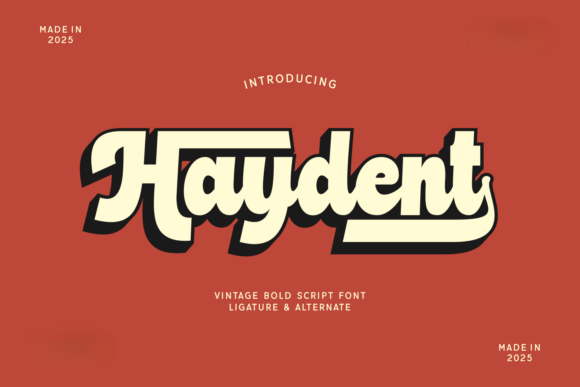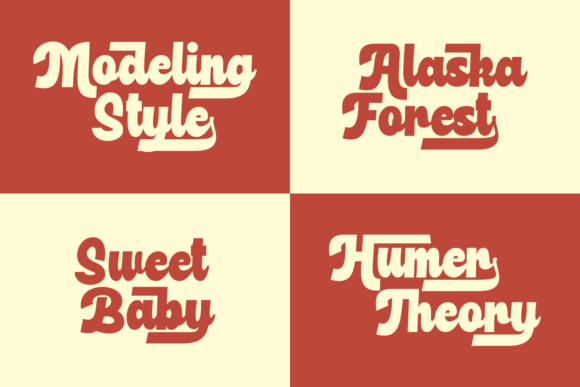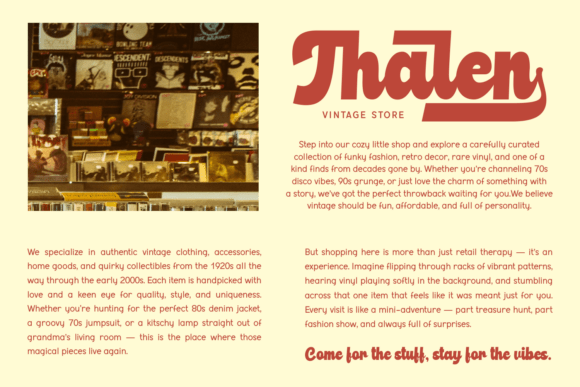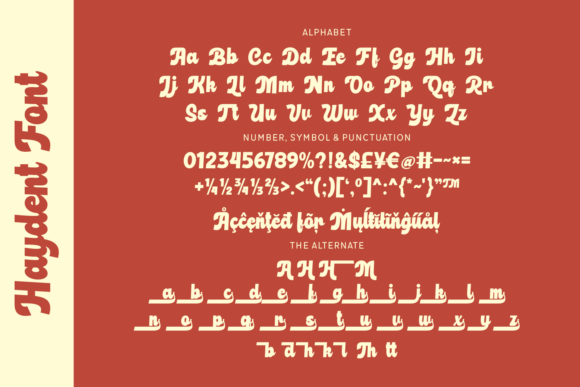
Haydent Font: Bold Retro Script for Eye-Catching Poster Design
About the Haydent Font
From logos to headlines, the Haydent Font is the perfect choice for making a lasting impression. Haydent is a vintage-inspired bold script font that blends retro charm with modern swagger. With strong curves, thick strokes, and creative ligatures, this font is perfect for branding, apparel, posters, and signage that crave a touch of nostalgia. Haydent’s built-in alternates and swashes offer versatility and a punchy personality to every design it meets.
Haydent thrives in headline applications, short impactful phrases, and logo design where its bold personality shines. It’s ideal for projects requiring a retro yet contemporary feel, such as vintage-inspired branding, apparel designs, and eye-catching posters. However, its strong stroke contrast and decorative elements make it less suitable for body text or UI elements where readability is paramount.
Pairing Haydent effectively requires considering its strong, expressive nature. A clean sans-serif like Montserrat or a geometric sans-serif such as Futura would provide a sophisticated contrast, balancing Haydent’s curves with sharp lines. For a warmer feel, a classic serif like Garamond or a more modern serif like Playfair Display could work well, grounding the design and softening its overall impact.
Its core personality is bold and playful, yet sophisticated; a blend of vintage charm and modern energy. Brands seeking to convey a sense of retro cool, handcrafted quality, or a touch of rebellious spirit will find Haydent a strong and versatile choice.
Haydent Font Usage Examples
Haydent Font Example